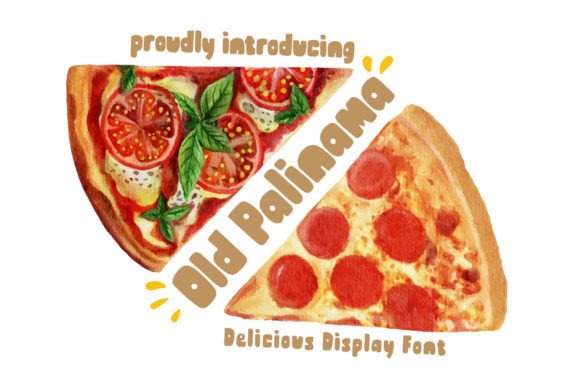
Introducing Old Palinama, the font that strikes a perfect balance between the modern culinary world and the timeless charm of classic design. This captivating font adds an elegant and aesthetic touch to a variety of food-related designs, including restaurant menus, culinary brochures, and food blogs. With its sophisticated and timeless appeal, Old Palinama elevates your designs to new heights of visual delight.
Crafted with passion and precision, Old Palinama was born from the desire to capture the essence of contemporary food design while preserving the allure of traditional cooking styles. This font is a testament to the harmony between tradition and progress, a beautiful fusion of old and new that will leave your audience spellbound.
Every letter and character in Old Palinama is meticulously designed to deliver visually stunning and effortlessly readable text. It exudes a sense of warmth and familiarity, reminiscent of cherished food memories and the comforting flavors of home. Yet, it remains fresh and relevant, perfectly suited for the demands of modern design.
Imagine the impact Old Palinama will have on your contemporary food designs. It will infuse them with a classic, delightful charm that captivates the heart and captures the reader's attention. Combined with modern design elements, this font creates a visual symphony, an aesthetic masterpiece that will leave your audience in awe.